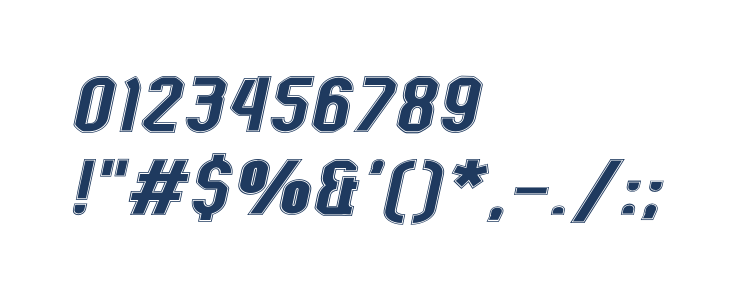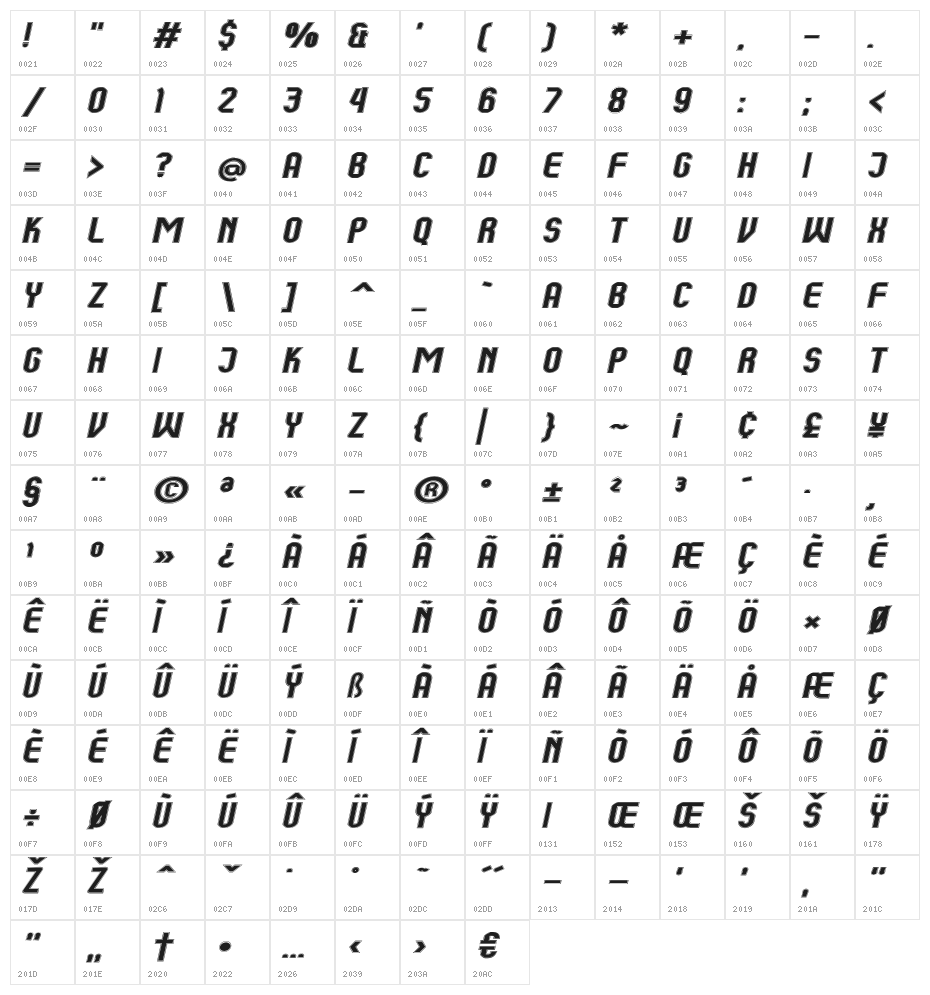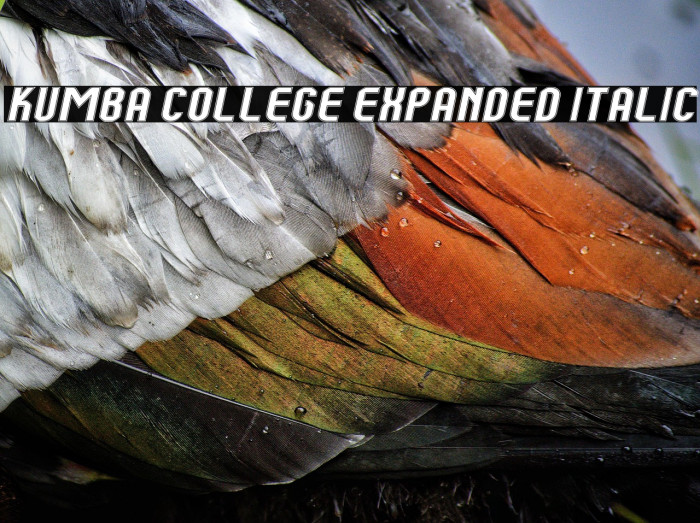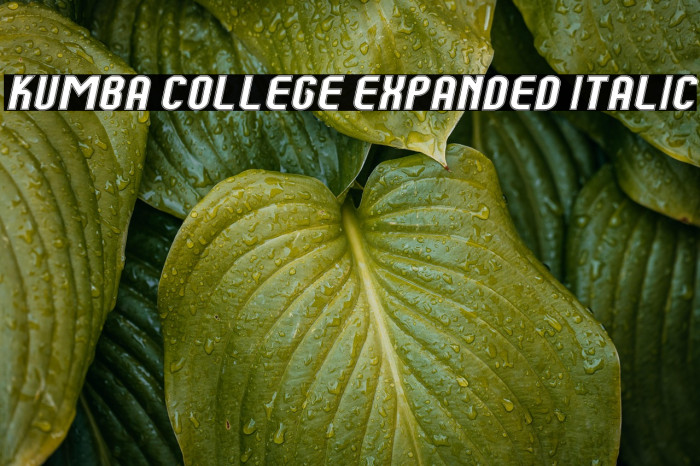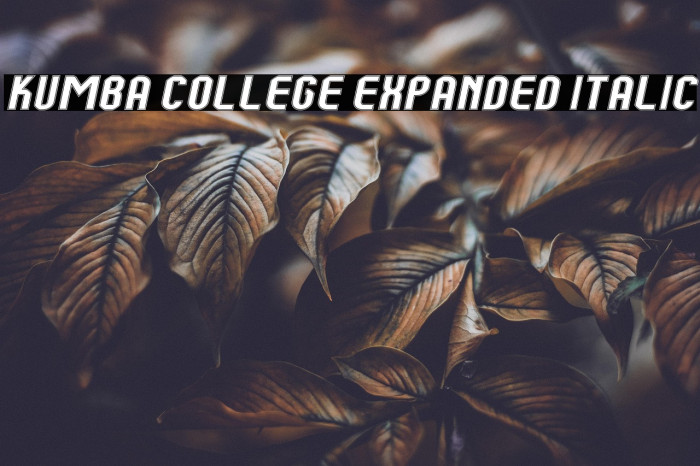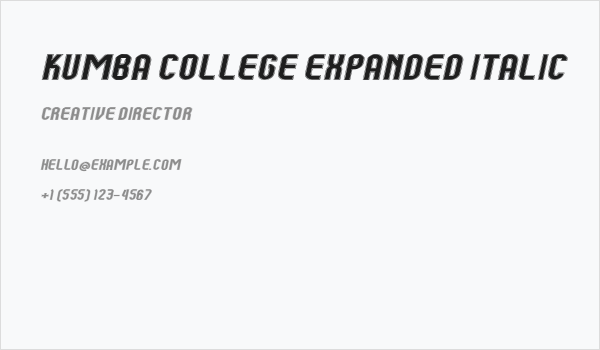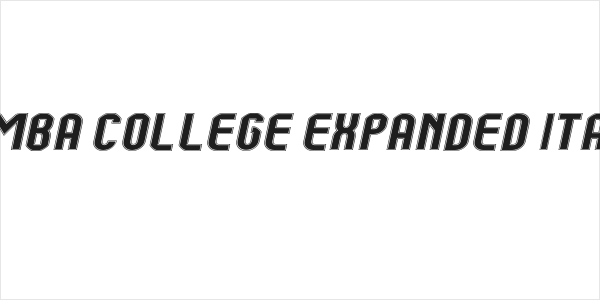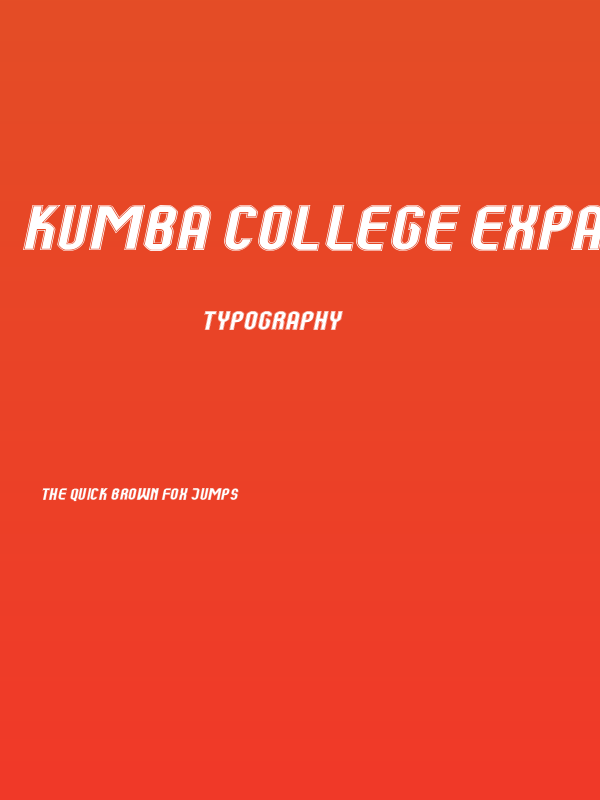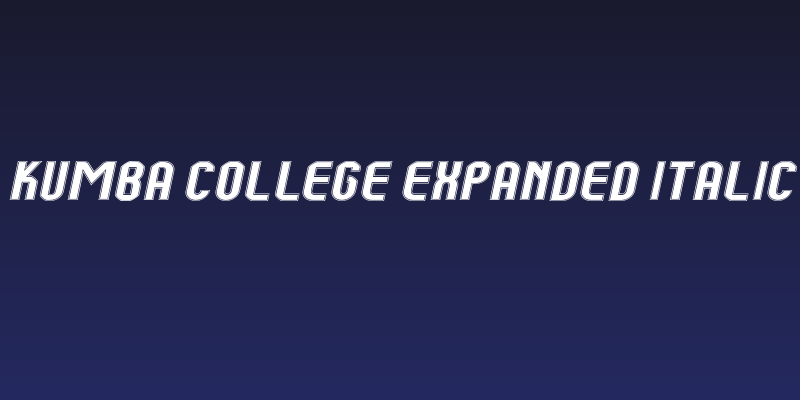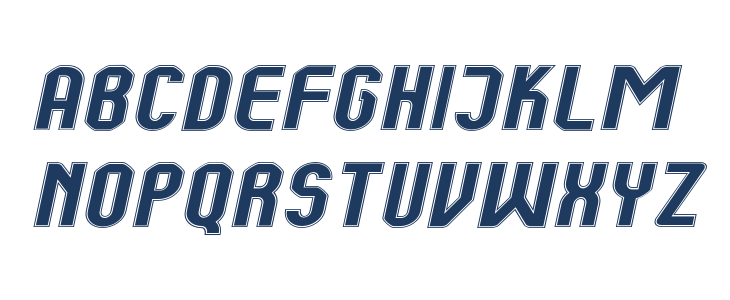
Kumba College Expanded Italic Font
Kumba College Expanded Italic Description
This font features a bold, expanded style with a distinct italic slant, giving it a dynamic and energetic appearance. The characters are outlined, adding a sense of depth and dimension, which makes them stand out prominently. The uppercase and lowercase letters maintain a consistent width, contributing to a uniform look across the text. The numbers and special characters are designed to match the bold and italicized style, ensuring cohesion throughout. The font's expanded width allows for greater visibility, making it suitable for attention-grabbing headlines or titles. Its modern and sporty aesthetic is ideal for projects that require a bold statement.